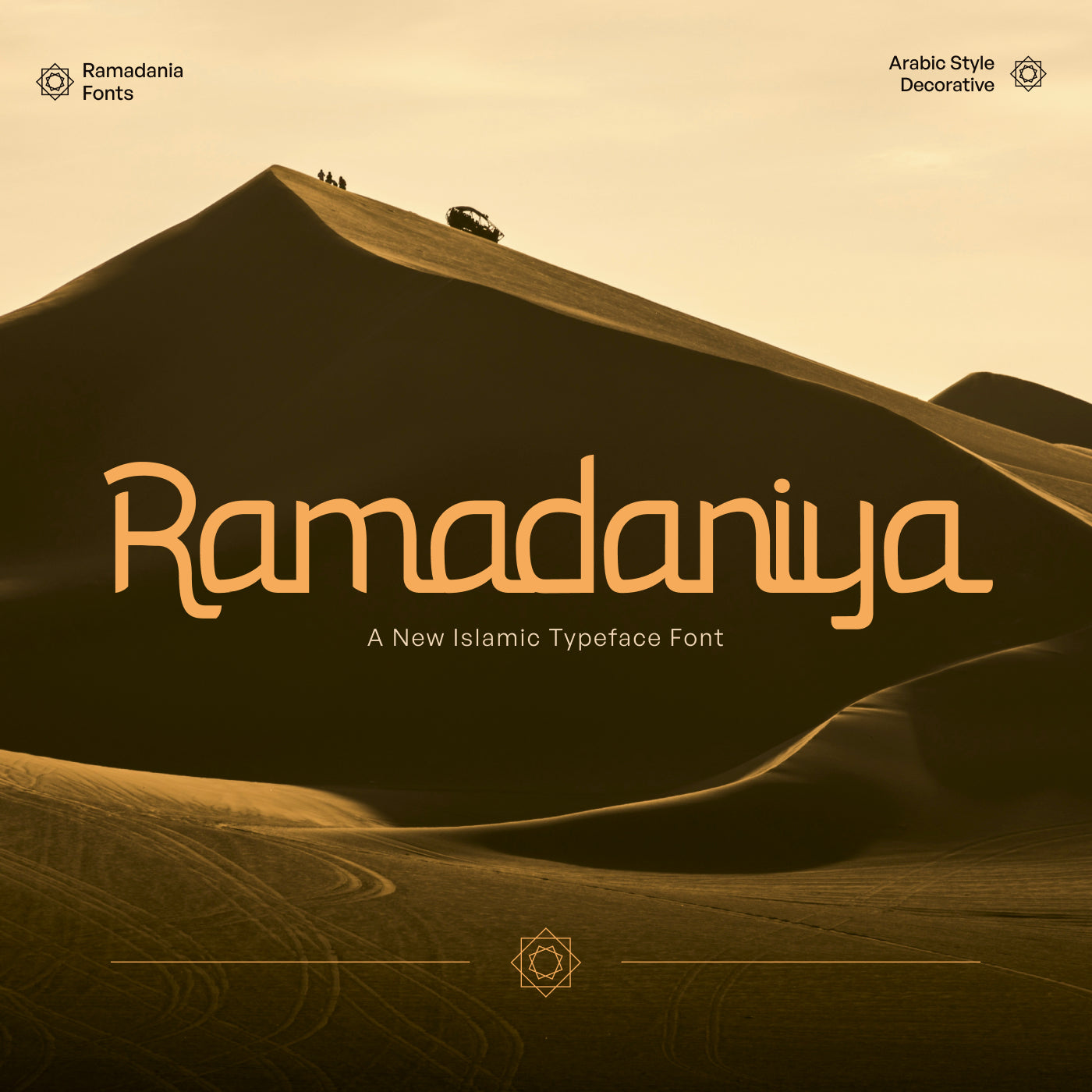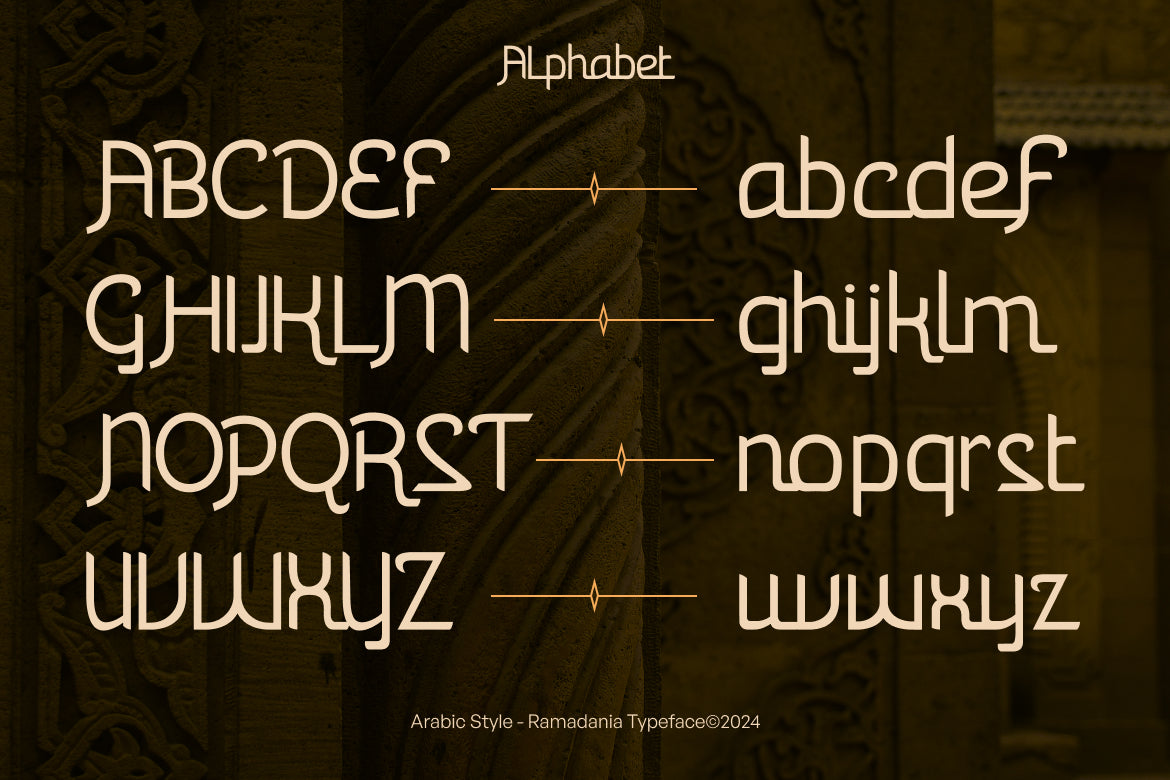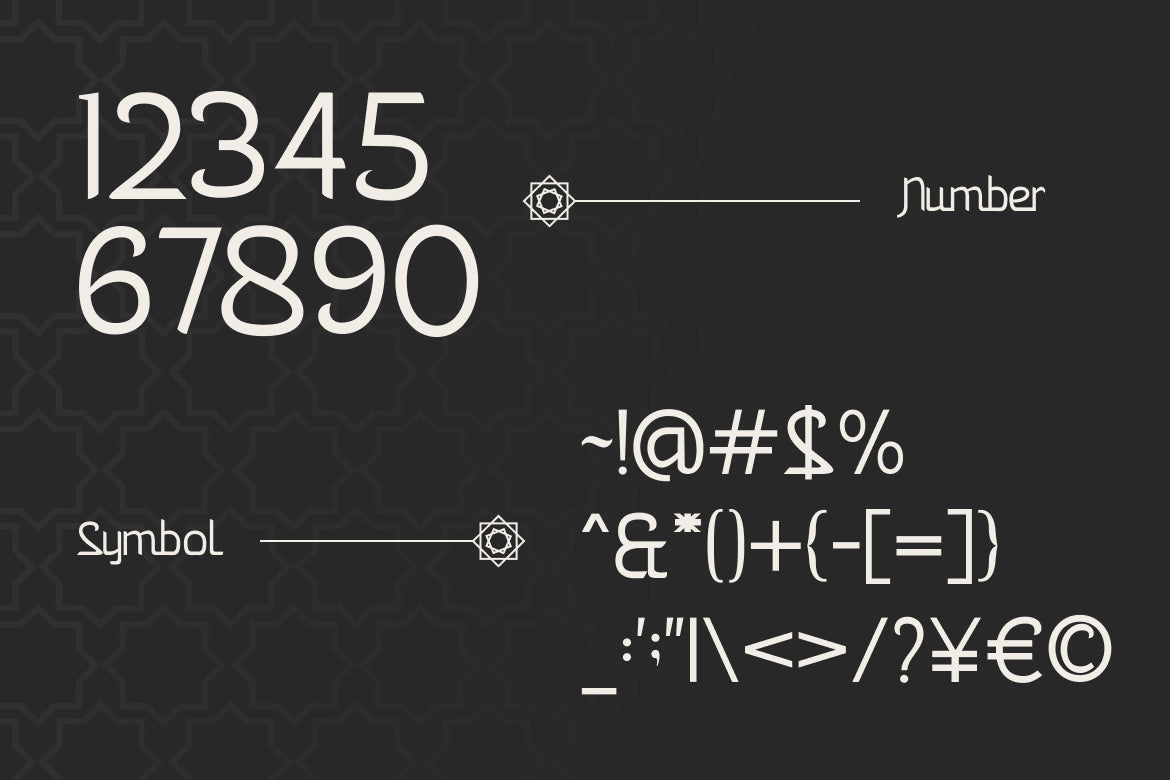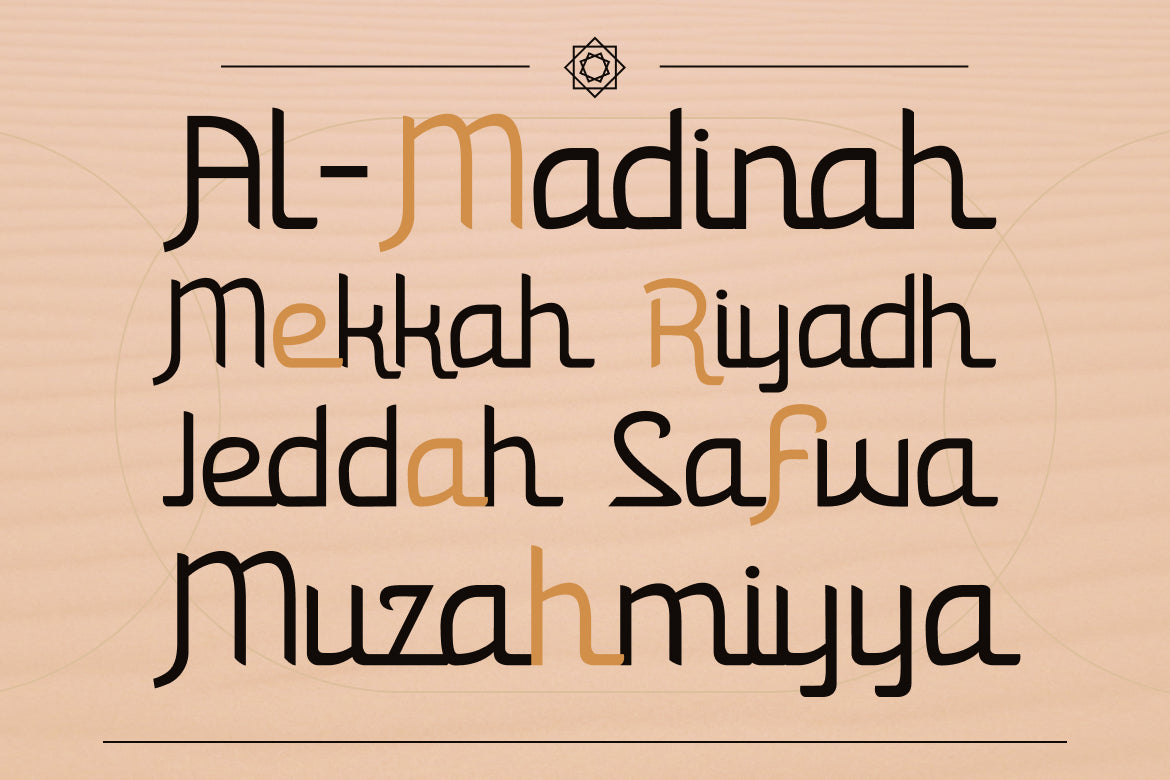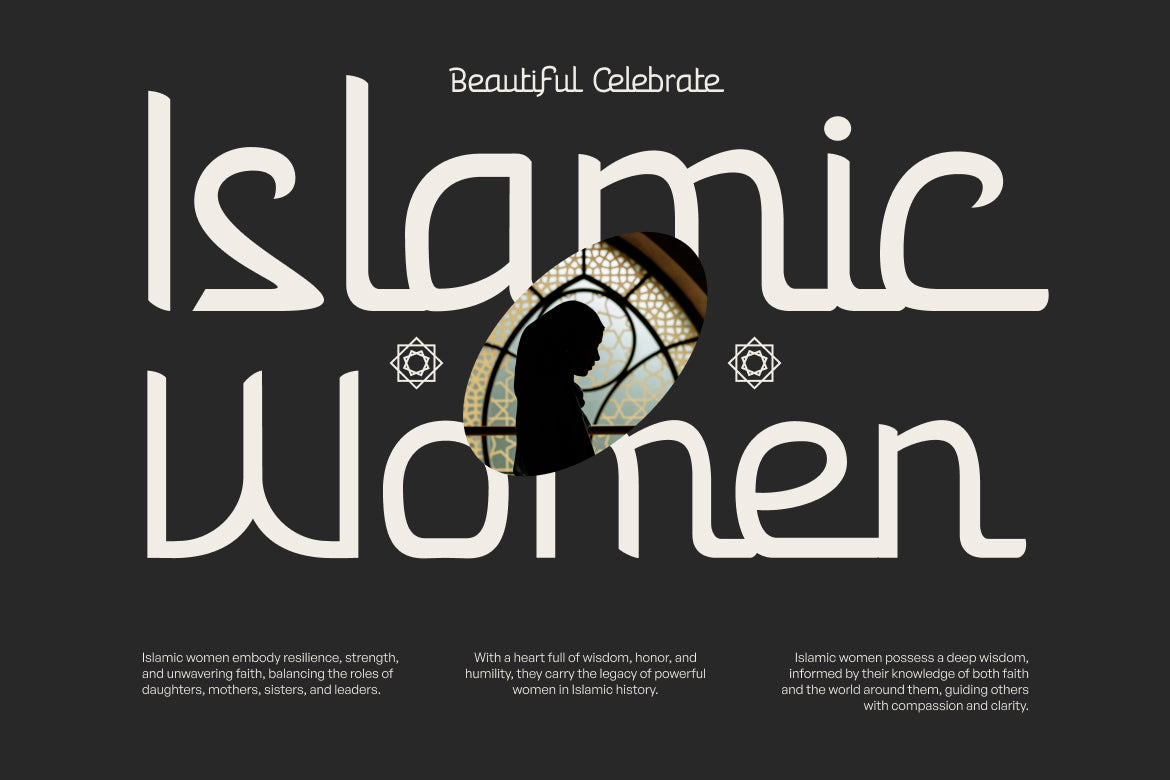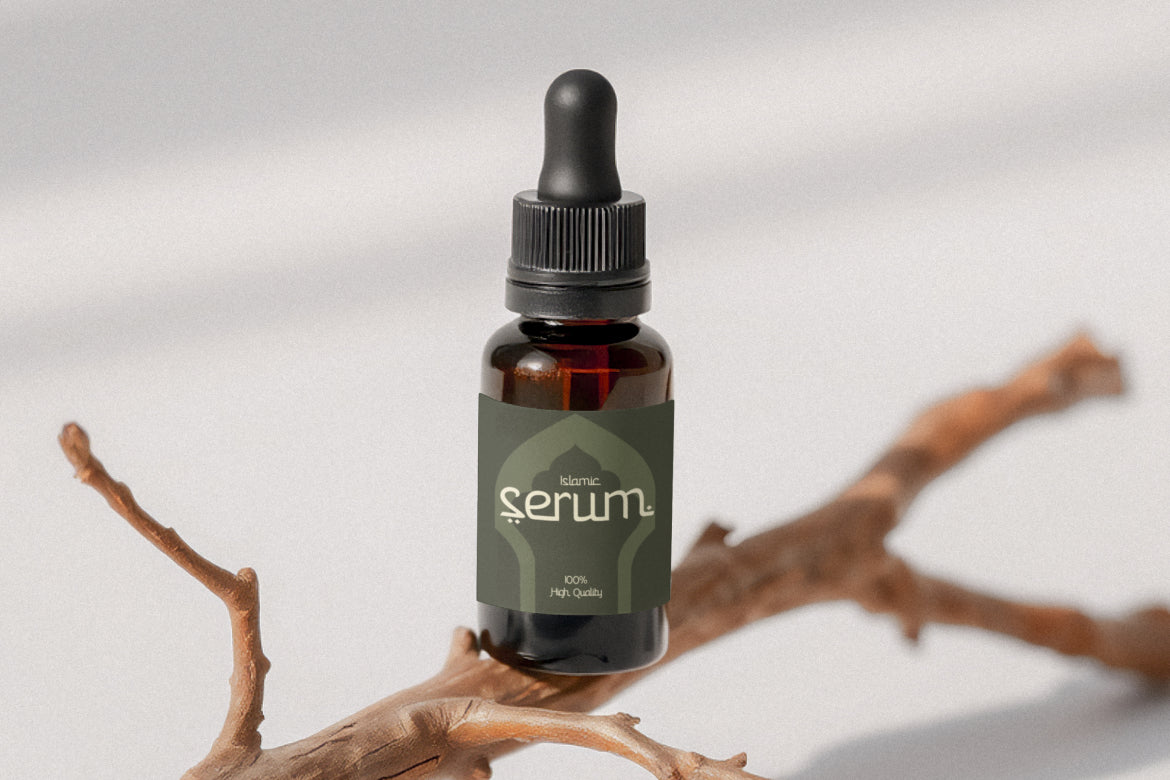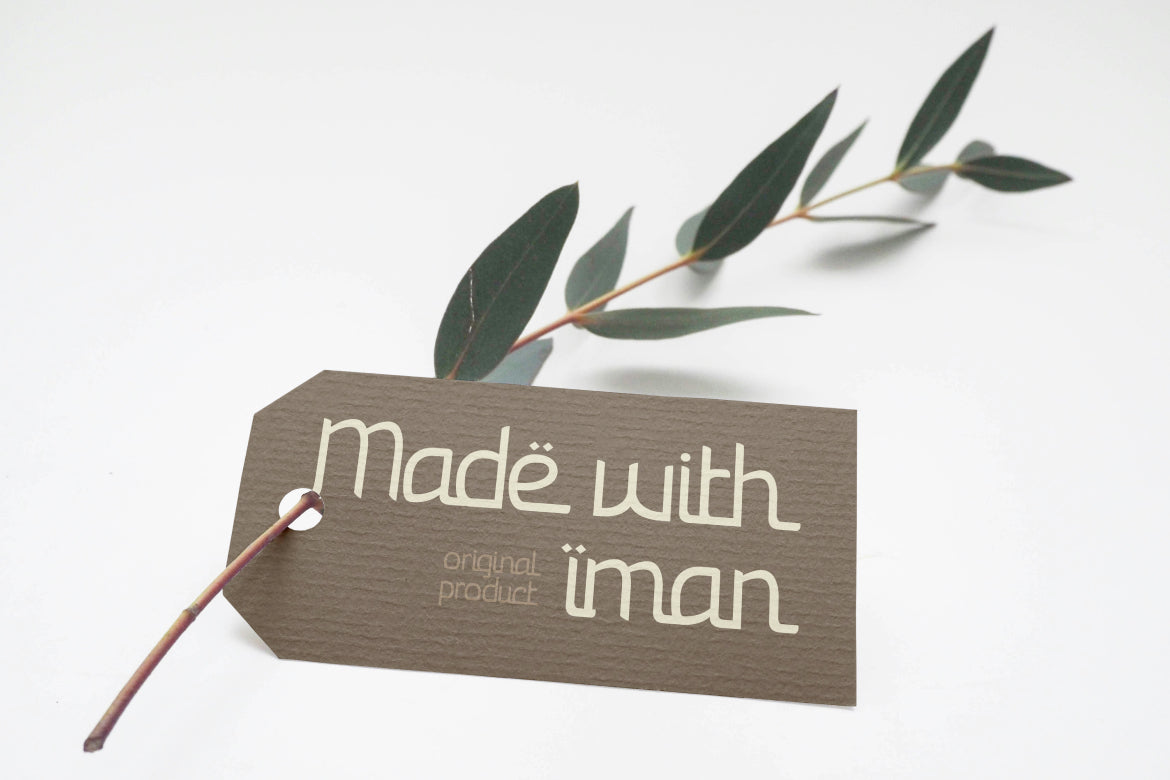
Ramadaniya Islamic Typeface Font
Ramadaniya Islamic Typeface Font is a culturally infused decorative display font that radiates elegance, calmness, and spiritual depth. With a unique nod to traditional Arabic typography, this typeface blends modern geometry with artistic heritage creating a soulful presence in every letter. Perfect for Islamic-inspired designs, Ramadan campaigns, Instagram posts for spiritual events, cultural packaging, and Middle Eastern-themed editorials or brochures.
Suitable for Ramadan greeting cards, Islamic educational posters, Eid product packaging, Mosque banners, Middle Eastern travel brochures, Halal cosmetics branding, Cultural social media content, Spiritual podcast covers, Islamic school identity design, Quran study group flyers, Halal food festival logos, Arabic heritage books, Ramadhan promotional ads, Charity event posters, Muslim fashion labels, Wedding invitation cards, Faith-based journal titles, YouTube thumbnails for Islamic content, Islamic business stationery, Cultural festival identity kits.
The Ramadaniya Islamic Typeface Font is a decorative display font that combines traditional Arabic typography with modern geometric design. It includes uppercase and lowercase characters, numerals, and punctuation, and is available in TTF, OTF, and WOFF formats.